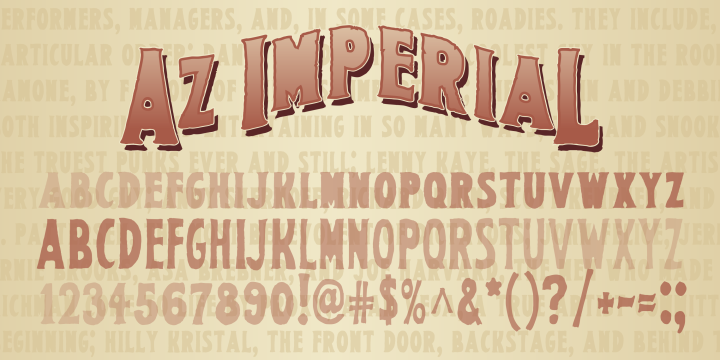
This majestic typeface excels in luxury hotel branding, royal event invitations, premium government communications, imperial palace signage, high-end financial institutions, exclusive member clubs, prestigious award ceremonies, and sovereign communications. Its regal character makes it perfect for projects requiring imperial authority and aristocratic grandeur.
AZ Imperial Font creates excitement through its sovereign magnificence that captures the commanding presence of imperial power and royal heritage. The font's stately proportions and crown-worthy letterforms create an atmosphere of absolute authority that resonates with audiences seeking prestigious experiences and imperial authenticity. Its majestically crafted character variations deliver throne-worthy readability while maintaining distinctive imperial personality that reflects the enduring power of royal traditions and the transformative impact of sovereign design principles.
The AZ Imperial Font family features multiple royal variations including regular, light, bold, ornate, and ceremonial styles. Each family member maintains the distinctive imperial aesthetic while offering different levels of sovereign sophistication for various regal applications. This majestic collection empowers designers to create commanding compositions that celebrate the full spectrum of imperial experiences from intimate court proceedings to grand state ceremonies.
The AZ Imperial Font Free Download provides designers with access to premium imperial typography that brings authentic sovereign elegance to any project. Its regal character and imperial appeal make it ideal for creating memorable royal brands and engaging aristocratic communications that command respect. Whether developing luxury hospitality identities, designing governmental materials, or crafting imperial marketing campaigns, this font delivers the sovereign sophistication and royal authenticity essential for connecting with audiences who appreciate imperial heritage, seek prestigious experiences, and demand the commanding presence of true imperial majesty.